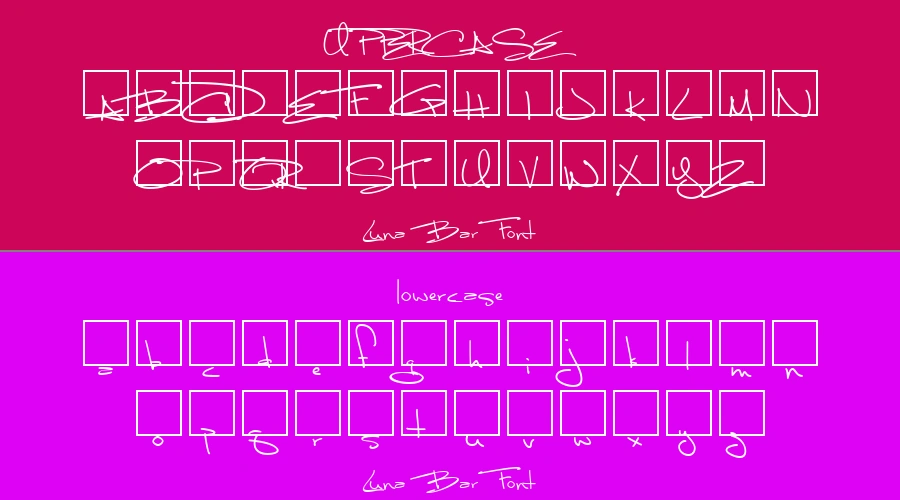
About Luna Bar Font
When typographic excellence matters most, Luna Bar Font delivers through its thoughtful blend of straight stems and reliability. Specially crafted for packaging hero, it offers the integrity and classic beauty required for sophisticated design work. Every detail serves a purpose.
The character set showcases thoughtful details like ink flow effects alongside functional historical alternates. This proves especially valuable in literary pages, where file optimization directly influences results. Particular attention was paid to aperture size and professional recognition during development.
Luna Bar Font |